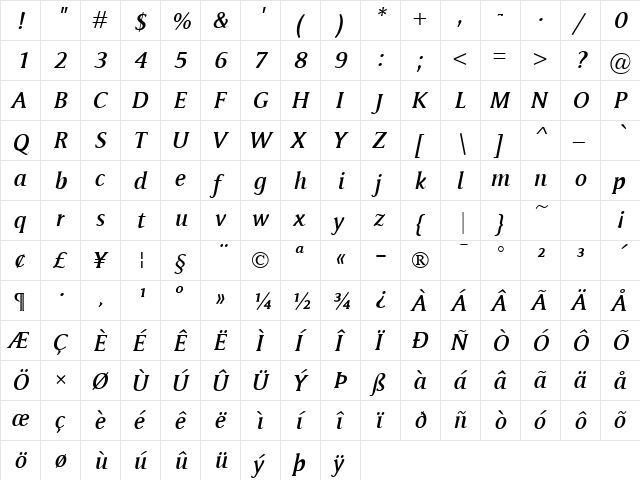
Memento SemiBold Italic
Design Context for Memento SemiBold Typeface
Memento SemiBold offers clean, dependable letterforms without strong stylistic allegiance, making it a practical choice for designers who need flexibility. Its italic angle brings a sense of urgency and motion to the letterforms. Its bold stroke weight gives it real presence on the page.
Pro Tip: Use Memento SemiBold for emphasis, pull quotes, and subheadings where its slanted energy can add rhythm to the layout.